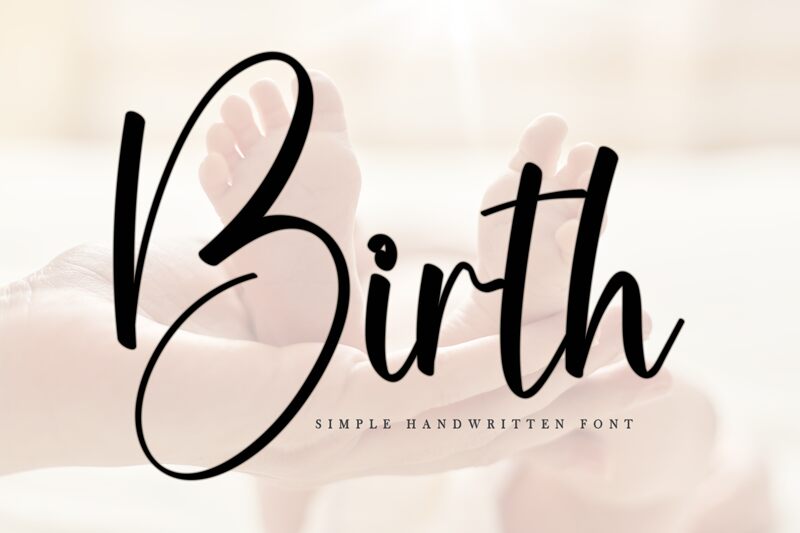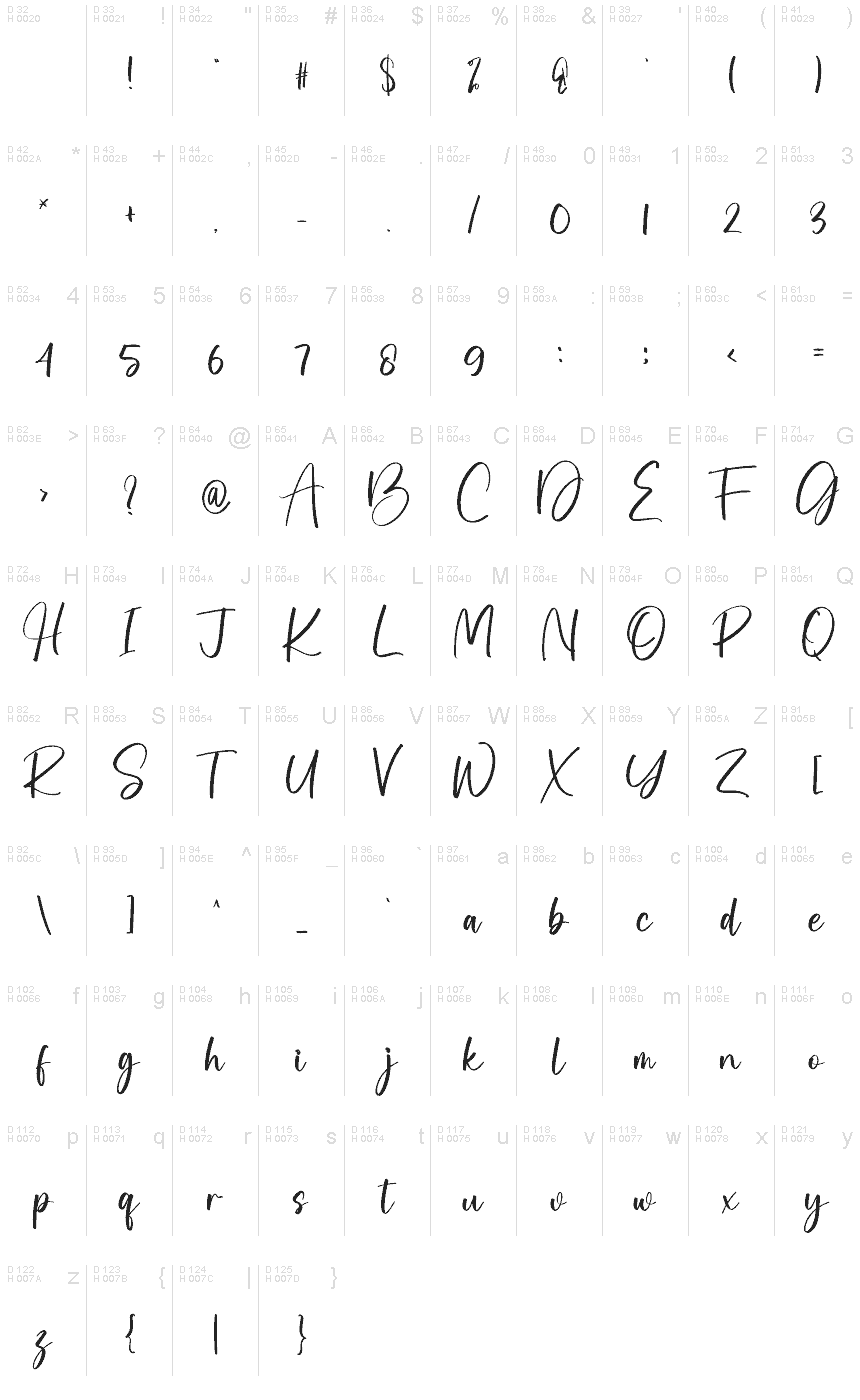
Birth
Birth font is an elegant and flowing handwritten font by creatype designer. With a classy calligraphic influence, it modernizes the classic style with a contemporary and fresh touch. Its expressive nature makes this free handwritten font easily noticeable, which attracts attention to its subtle stylish effects.
Use Birth in typography projects for luxury brands, fashion magazines, logotypes, shopping brands, cosmetics products, or magazine covers. Other great use cases include headlines for advertisements or articles published in print or online platforms. The font would also look stunning on packaging designs and invitations to high-class parties like weddings and galas.